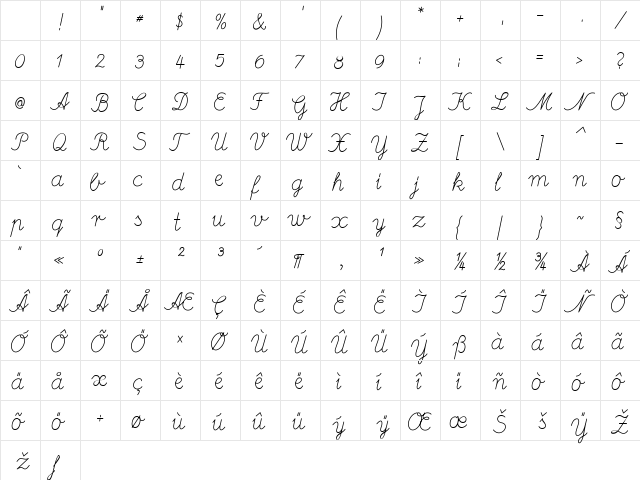
Complete Deutsche Normalschrift Italic glyph index. Displaying only characters natively supported by Deutsche Normalschrift Italic font.
Deutsche Normalschrift is a composed and adaptable typeface that performs quietly and consistently across a wide range of design contexts. The slanted form adds forward momentum and visual energy.
Pro Tip: Use Deutsche Normalschrift for emphasis, pull quotes, and subheadings where its slanted energy can add rhythm to the layout.